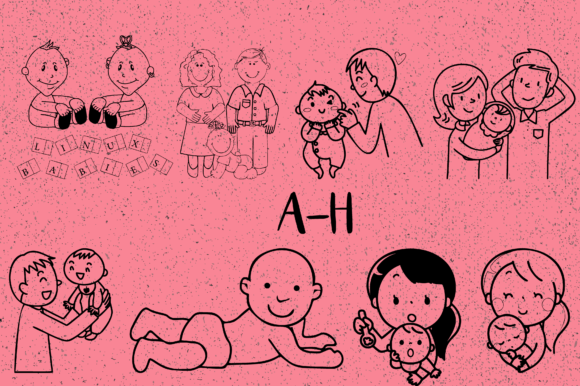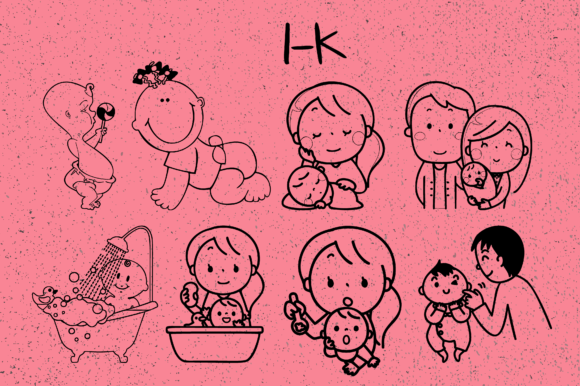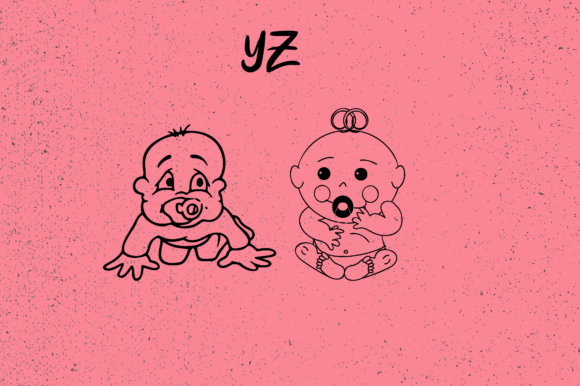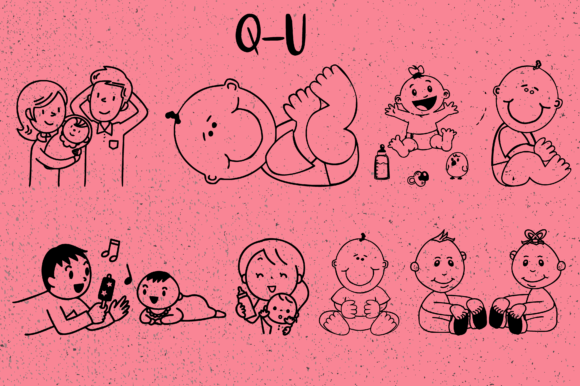
Babies and Kids Font
About Babies and Kids Font
Babies & Kids is a delightful dingbats typeface that allows you to create charming and playful cartoons related to babies and children. With this font, you can generate a variety of adorable illustrations by simply typing letters and numbers.
This typeface offers a range of child-friendly icons and characters, making it an excellent resource for various design projects. Whether you’re creating invitations, nursery decor, educational materials, or anything related to babies and kids, Babies & Kids font can add a touch of whimsy and cuteness.
By typing different combinations of letters and numbers, you can access a diverse collection of children-related cartoons. From cute animals, toys, and vehicles to cheerful kids’ faces and objects, this font provides a wide range of options to suit your creative needs.
Babies & Kids is particularly useful for designing materials aimed at young children. The charming and relatable illustrations can capture their attention and make your designs more engaging. Whether you’re working on children’s books, activity sheets, or website graphics, this font offers a playful and vibrant aesthetic that appeals to young audiences.
Additionally, Babies & Kids can be utilized for creating personalized items and gifts for babies and kids. With this font, you can easily customize items like clothing, mugs, stationery, and more, adding a delightful touch to your creations.
Teachers and educators can also leverage Babies & Kids to enhance their teaching materials. Whether it’s for classroom decorations, visual aids, or worksheets, the child-friendly cartoons generated by this font can make learning more enjoyable and relatable for young students.
In summary, Babies & Kids is a fantastic dingbats typeface that allows you to generate children-related cartoons effortlessly. By typing letters and numbers, you can access a variety of adorable illustrations suitable for a range of design projects, personalized items, and educational materials. Let Babies & Kids bring joy and charm to your creations!